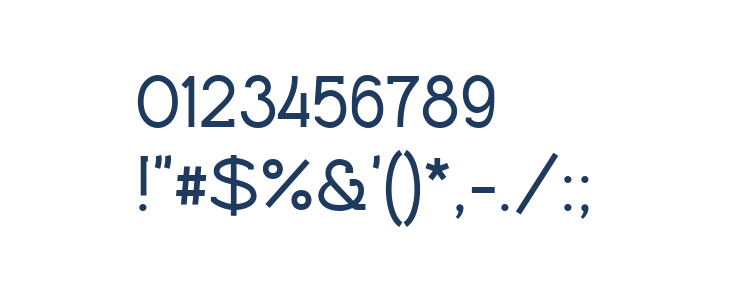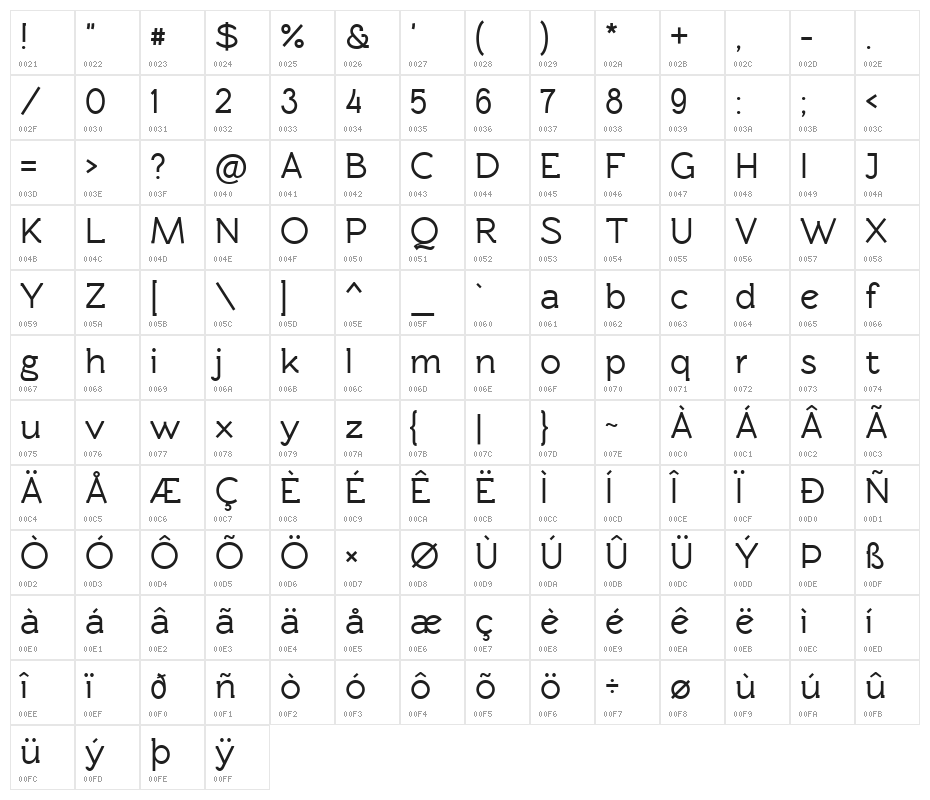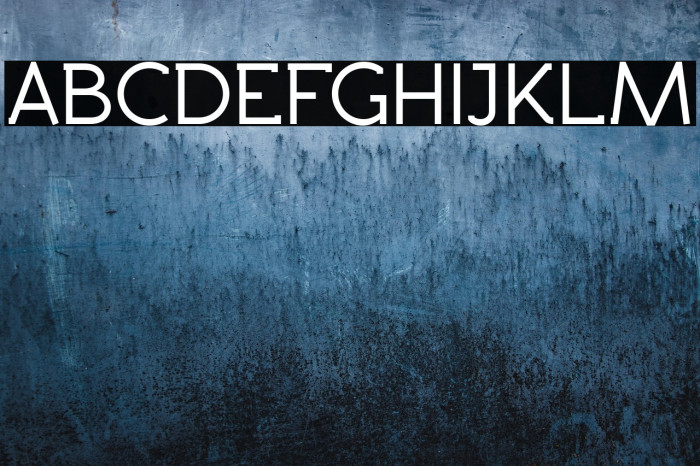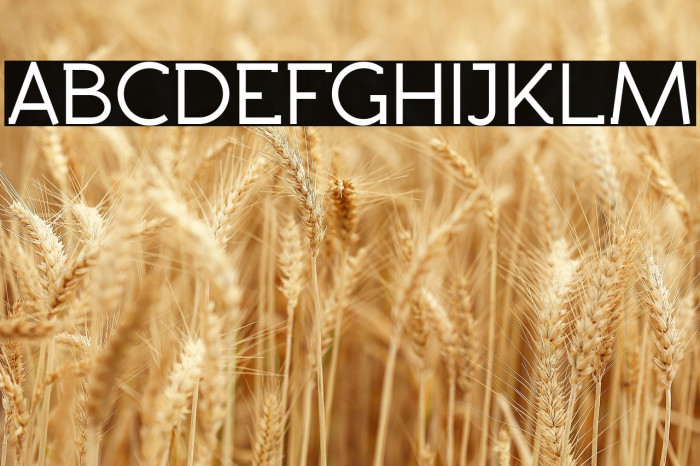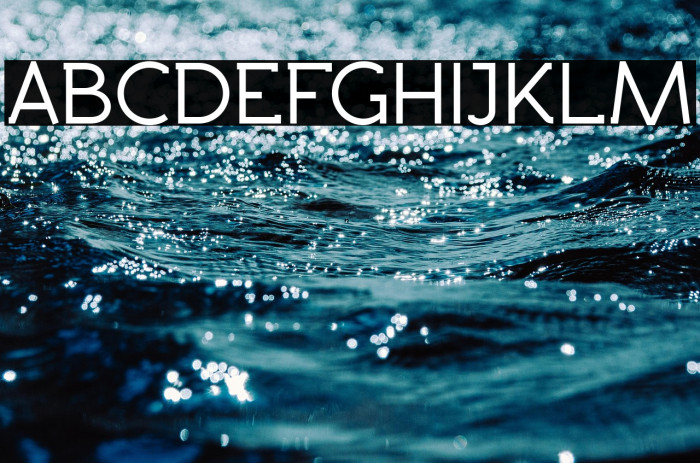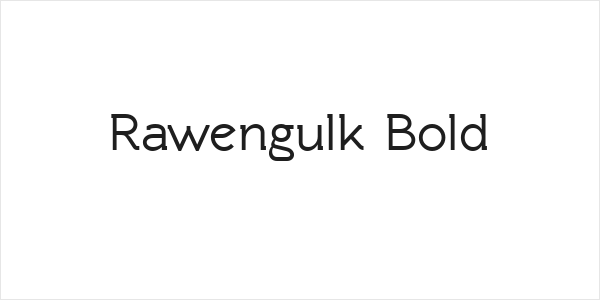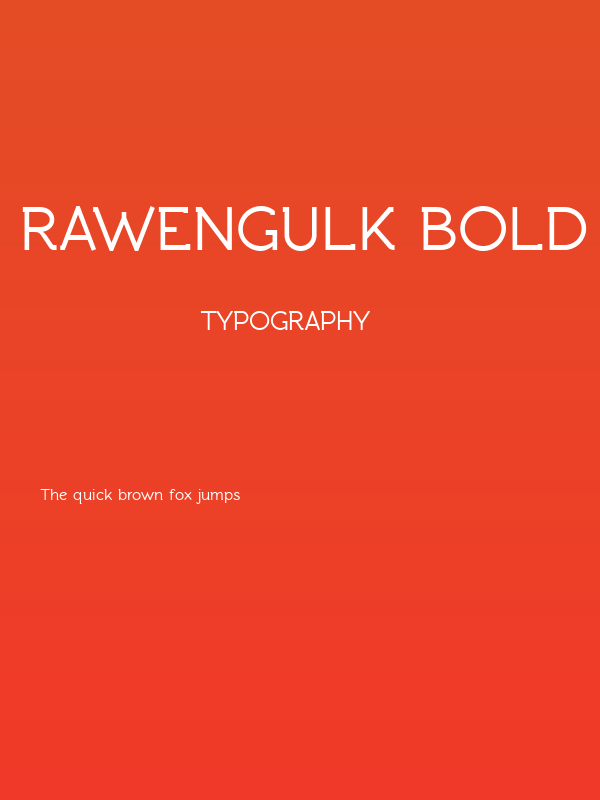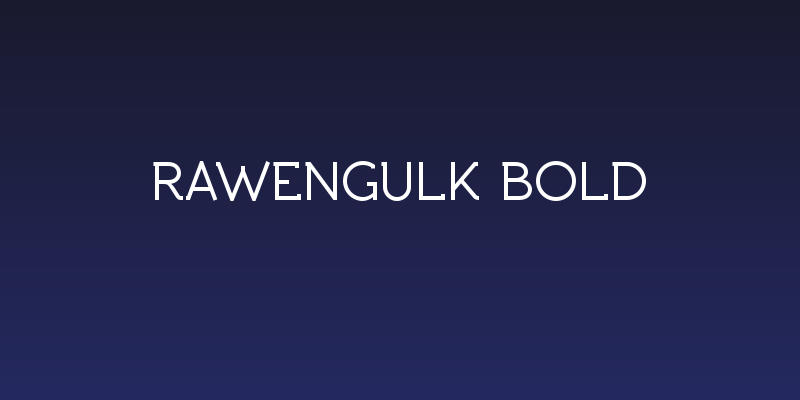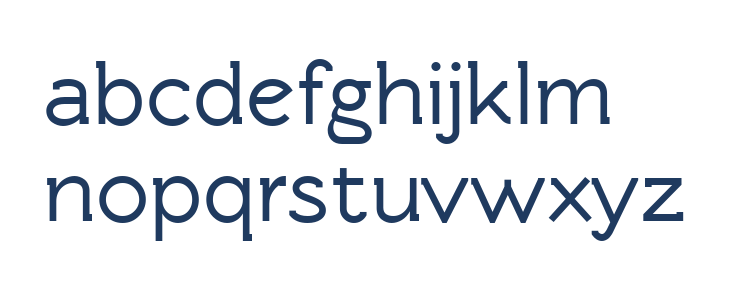
Rawengulk Bold Font
Rawengulk Bold Description
This font features a clean and modern sans-serif style with a bold weight, making it highly legible and versatile for various design applications. The characters are well-proportioned with a consistent stroke width, providing a balanced and harmonious appearance. The uppercase letters are slightly taller than the lowercase, which enhances readability. The numerals are clear and distinct, while the special characters are designed to complement the overall aesthetic. The font's simplicity and clarity make it suitable for both digital and print media.
| Proposed Projects | Ideal for branding, advertising, web design, and editorial layouts. |